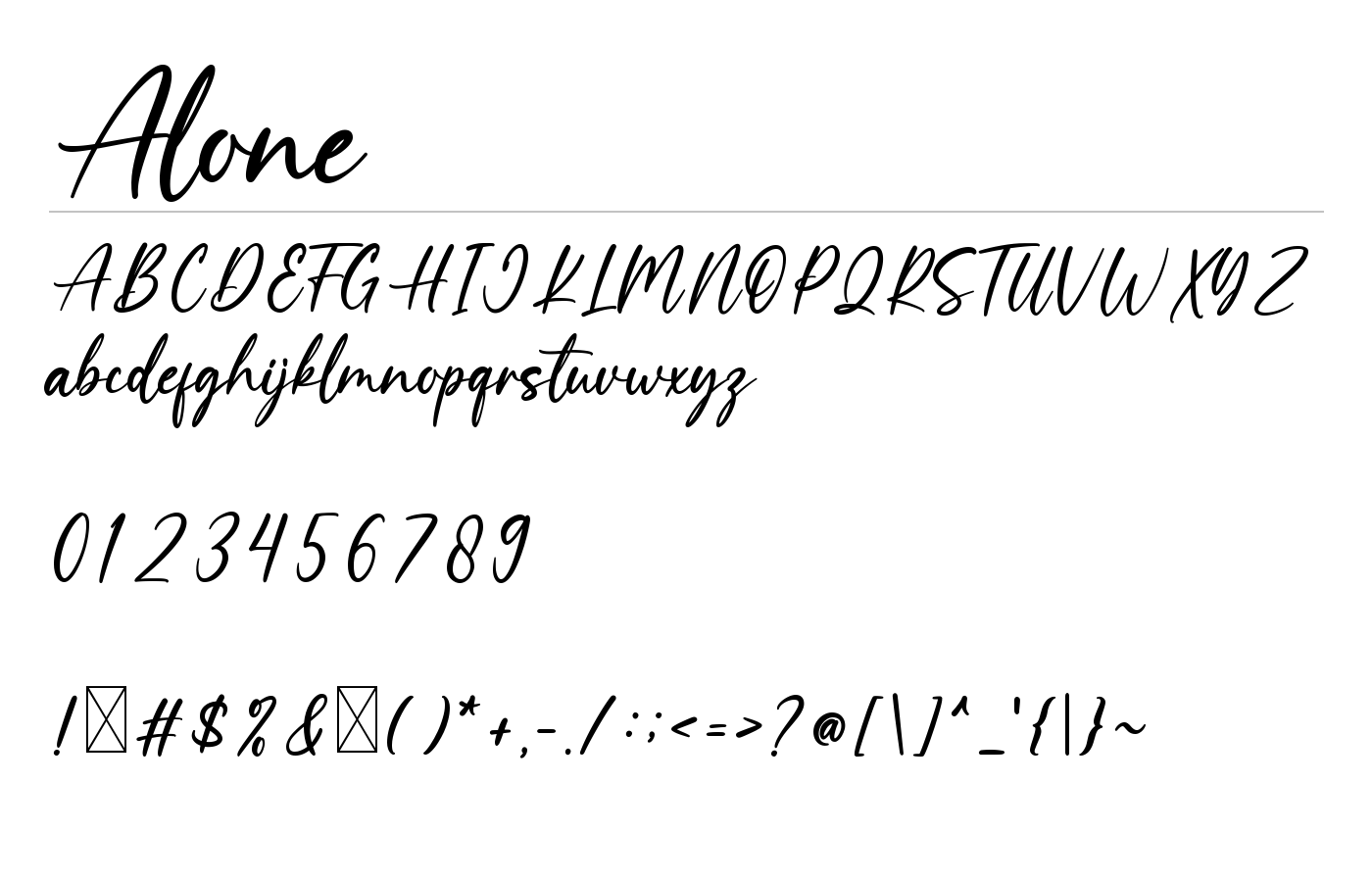
Alone is a stylish script font with a casual, hand-lettered feel characterized by its fluid, slightly slanted strokes and moderate contrast. Its elegant yet approachable style makes it perfect for branding, invitations, and creative projects seeking a personal, expressive touch. This font shines in headlines and display text where a warm, friendly vibe is desired.
Alone Font
About Alone Font